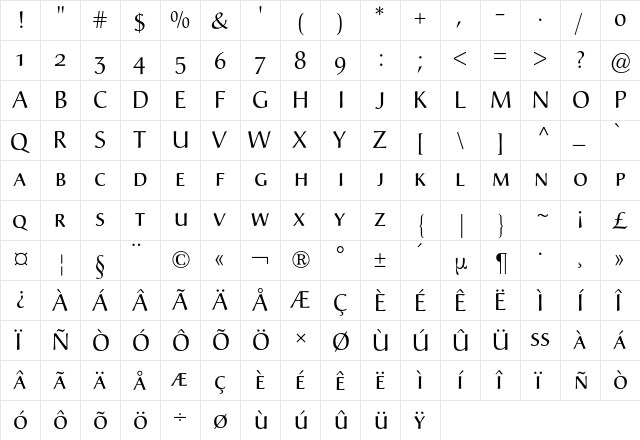
Christiana Expert BQ Regular
Design Context for Christiana Expert BQ Typeface
Christiana Expert BQ is a composed and adaptable typeface that performs quietly and consistently across a wide range of design contexts.